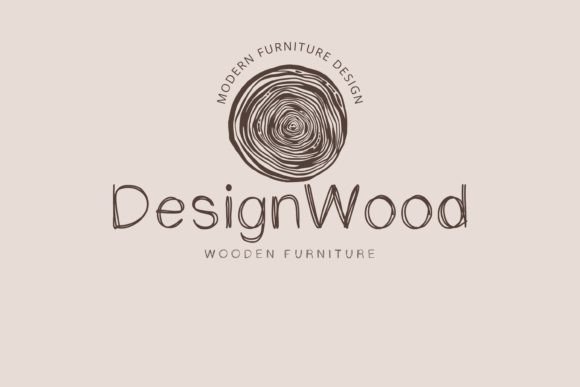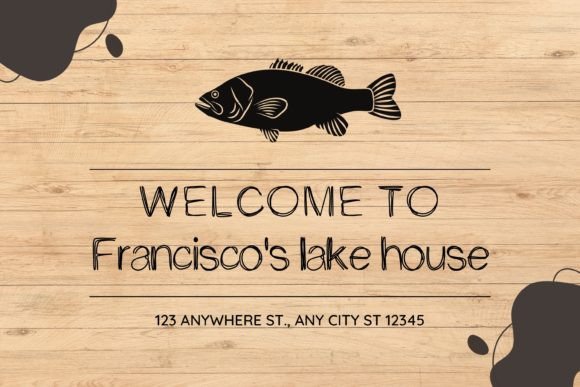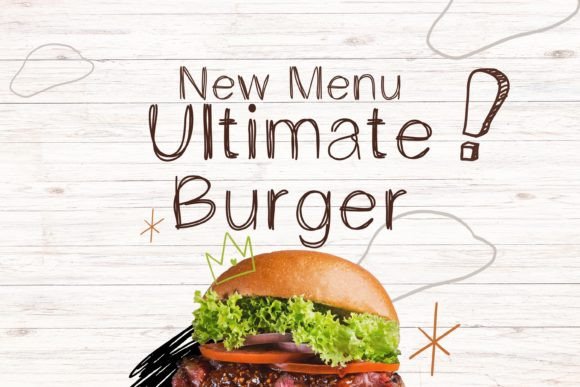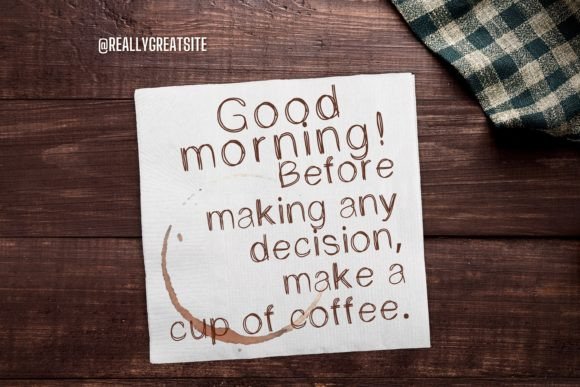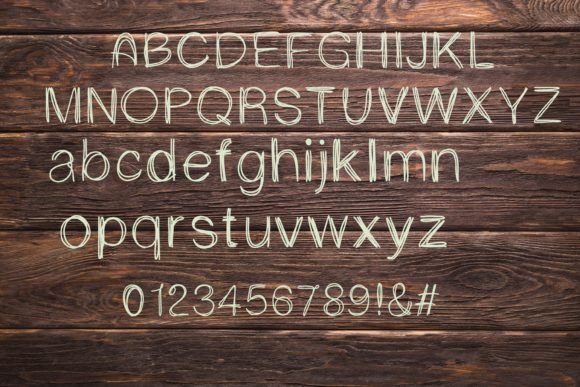
Introduction to Retro Rock Font
Retro Rock is a sweet and basic display typeface with lettered designs that may be used for any instructional materials and quotes for chalkboards.
Your designs will feel more personalized and realistic thanks to its genuine appearance .
Key Features of Retro Rock Font